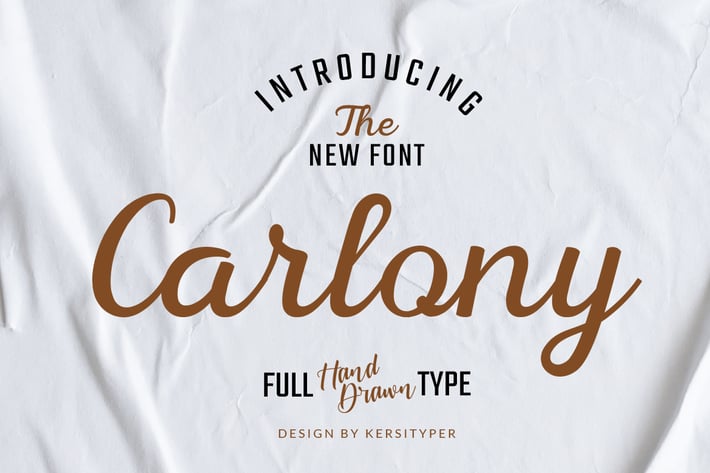
Carlony Font
Carlony is a delicate, elegant, and flowing handwritten font. It has beautiful and well-balanced characters and as a result, it matches a wide pool of designs. Fall in love with its incredibly versatile style and use it to create spectacular designs. This font is good for logo design, Social media, Movie Titles, Books Titles, short text even a long text letter, and good for your secondary text font with sans or serif.
Featured:
-Standard Uppercase & Lowercase
-Numeral & Punctuation
-Multilingual : ä ö ü Ä Ö Ü ß ¿ ¡
-Alternate & Ligature